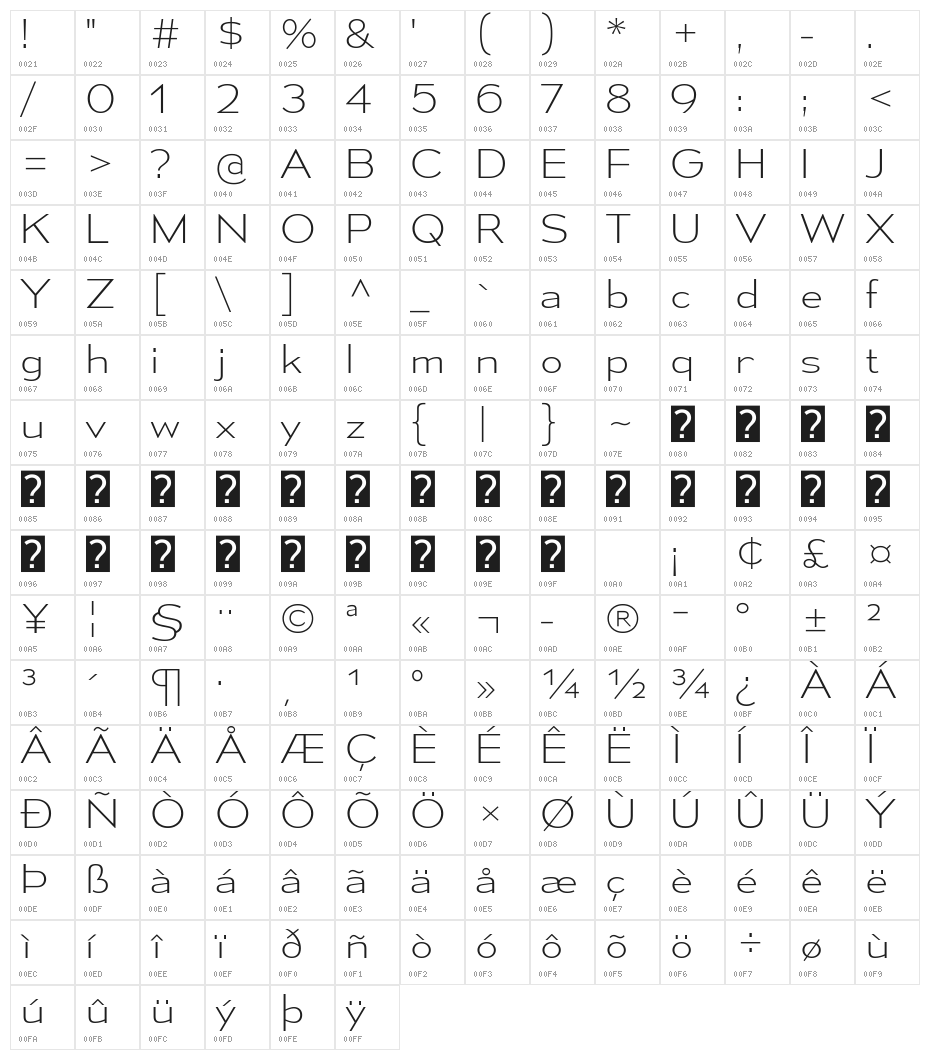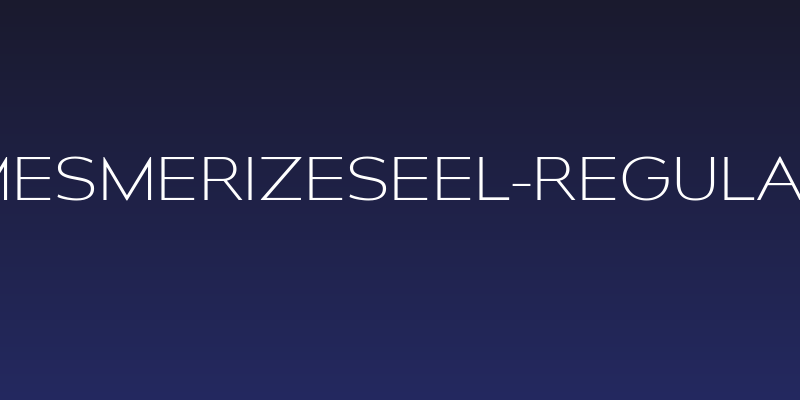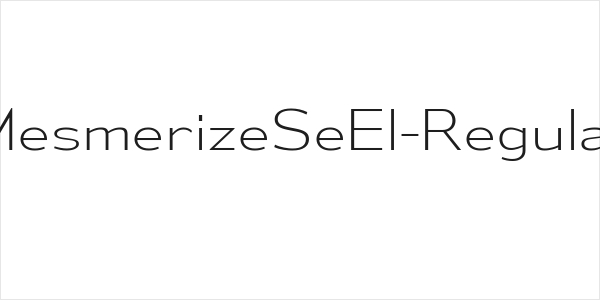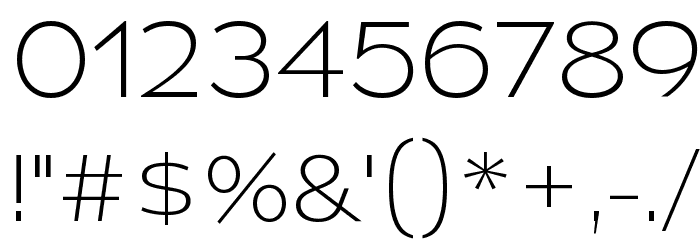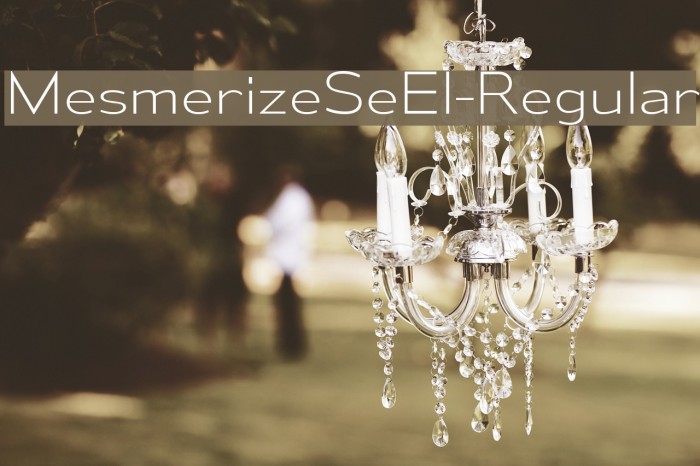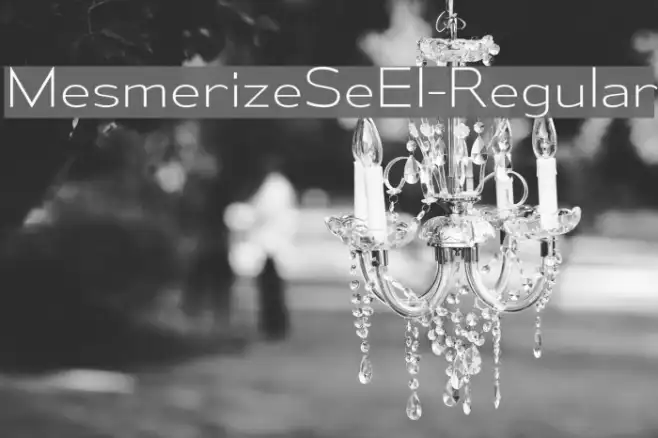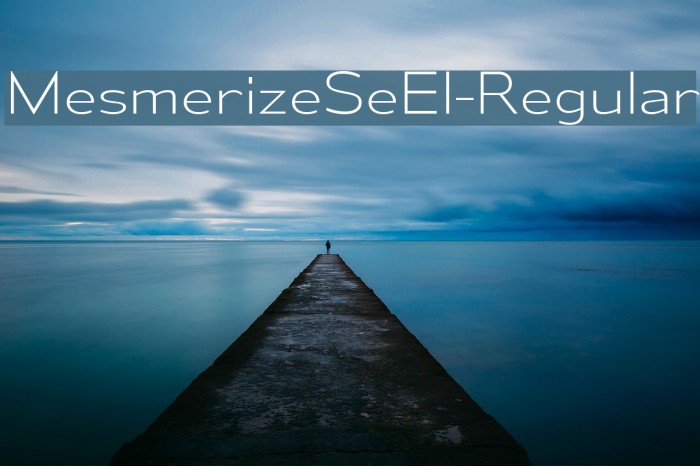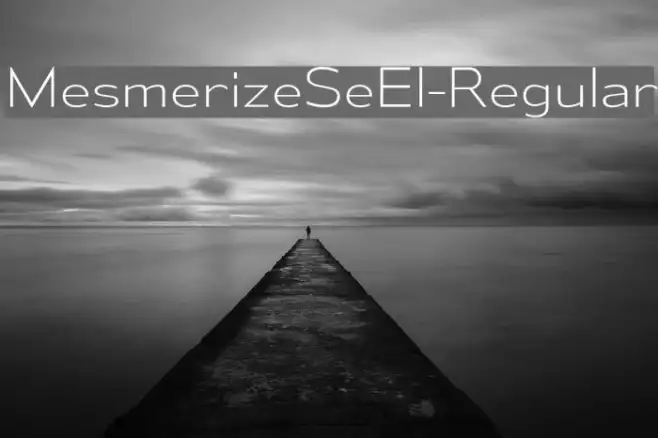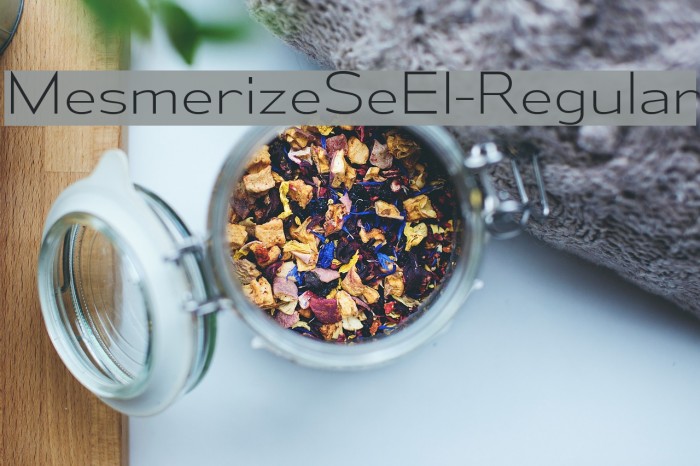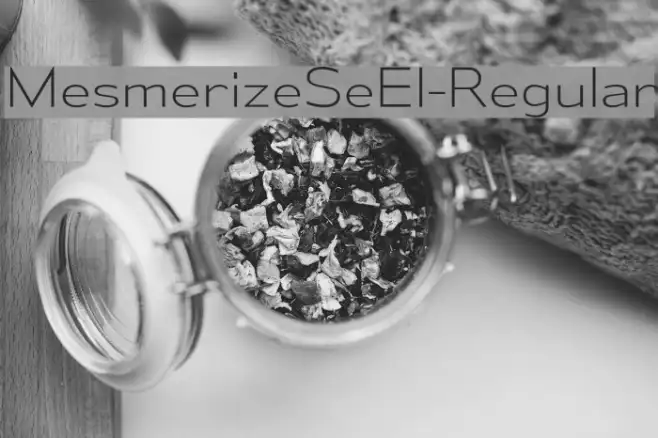
MesmerizeSeEl-Regular Font
MesmerizeSeEl-Regular Description
This font features a clean and modern sans-serif design with a geometric structure. The characters are evenly spaced, providing a harmonious and balanced appearance. The uppercase letters are bold and assertive, while the lowercase letters maintain a consistent style with rounded edges that add a touch of softness. The numerals are clear and legible, making them suitable for various applications. Special characters are well-defined, ensuring versatility in design projects. Overall, this font exudes a contemporary and professional vibe, making it ideal for digital and print media.
| Proposed Projects | Ideal for branding, web design, corporate materials, and editorial layouts. |